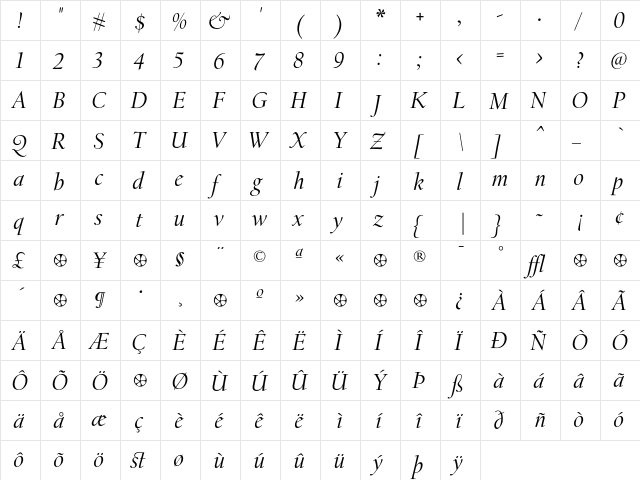
CalifornianMiddle Italic
Design Context for CalifornianMiddle Typeface
CalifornianMiddle offers clean, dependable letterforms without strong stylistic allegiance, making it a practical choice for designers who need flexibility. Its italic angle brings a sense of urgency and motion to the letterforms.
Pro Tip: Use CalifornianMiddle for emphasis, pull quotes, and subheadings where its slanted energy can add rhythm to the layout.